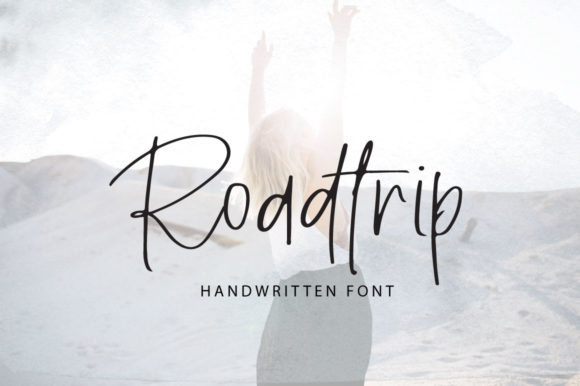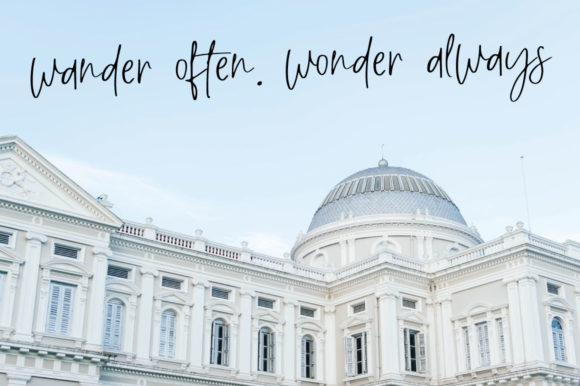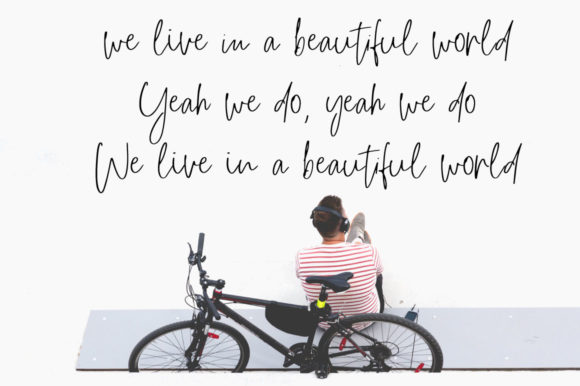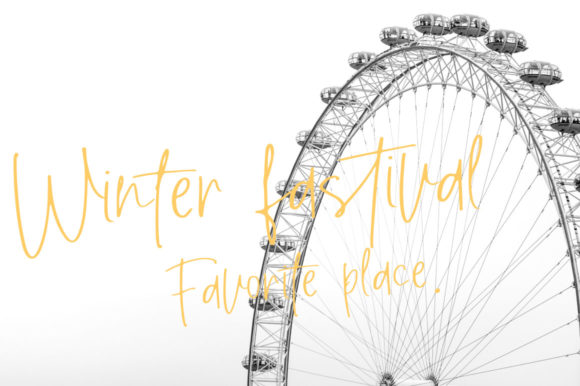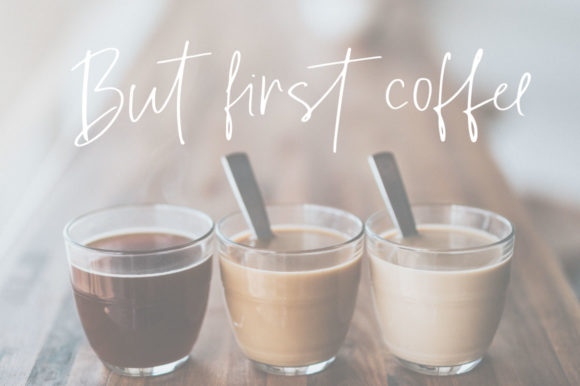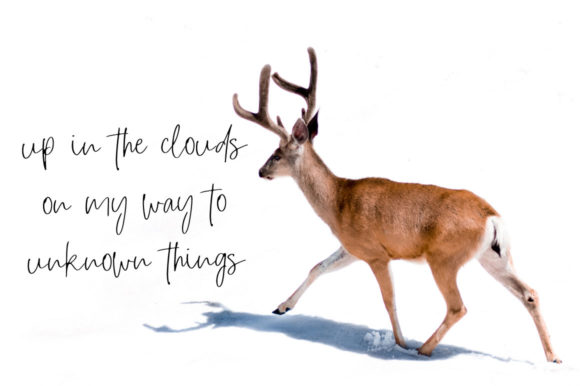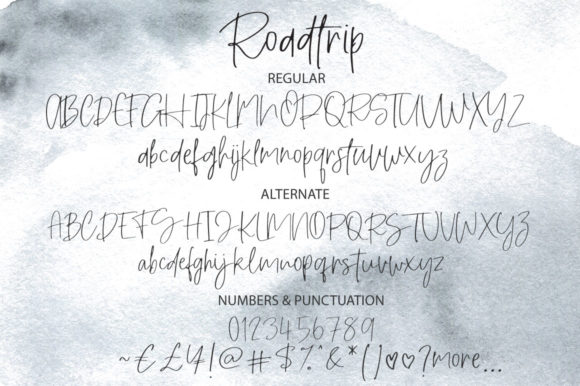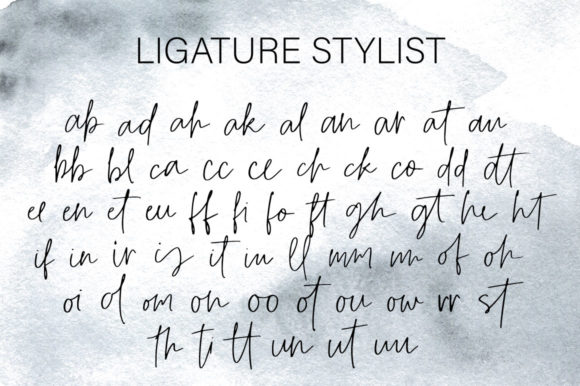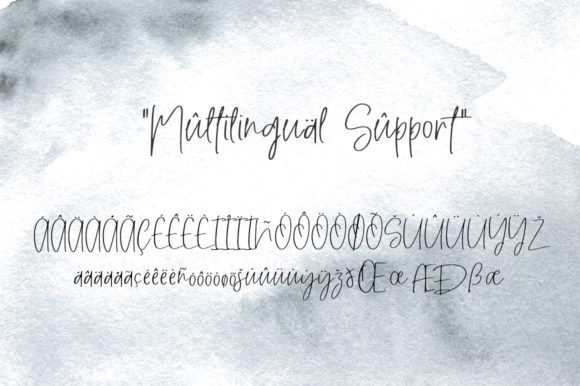
Roadtrip Font
About Roadtrip Font
The Roadtrip is a classic script font, perfect for high impact headlines. It has a beautiful handwritten style which is perfect for adding a personal touch to your designs.